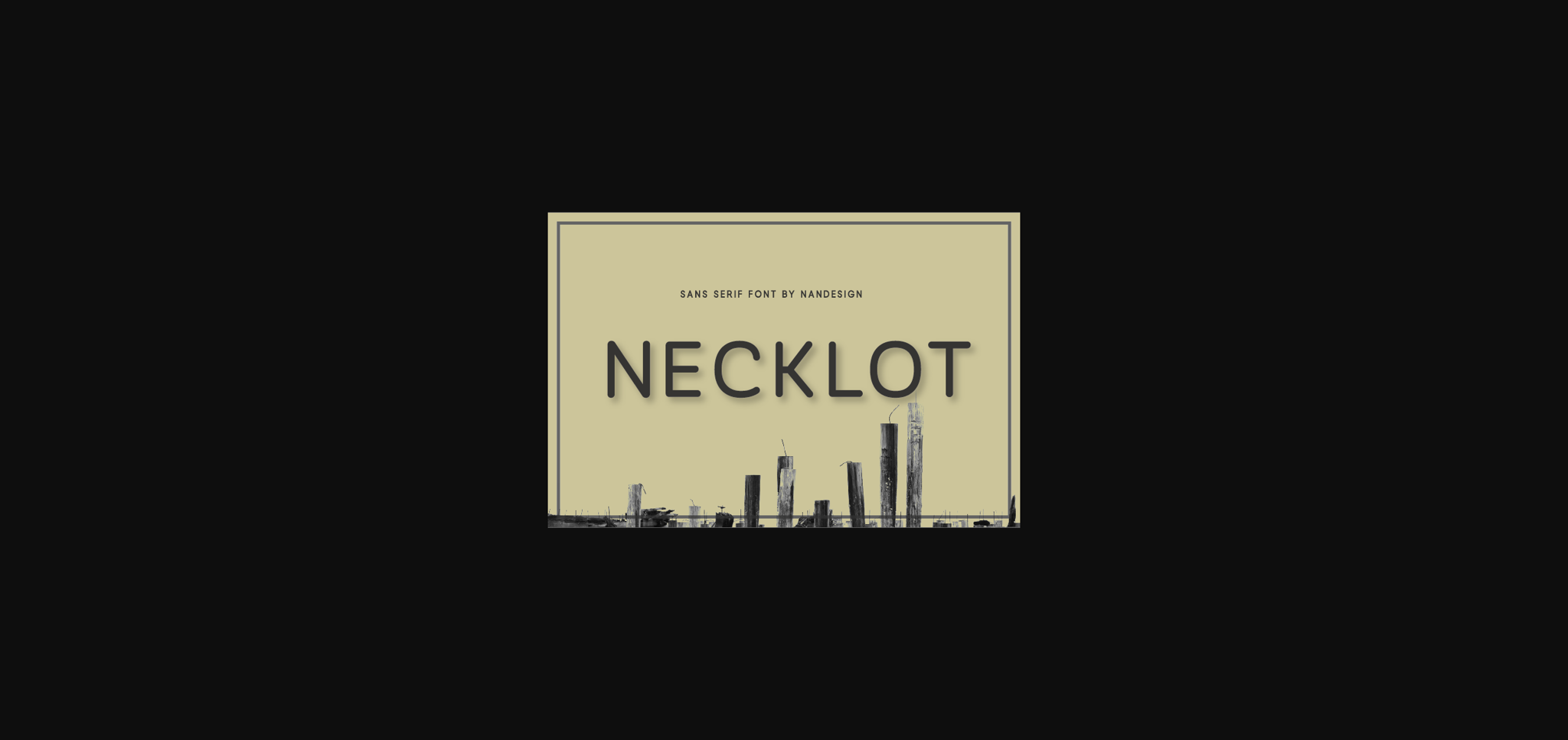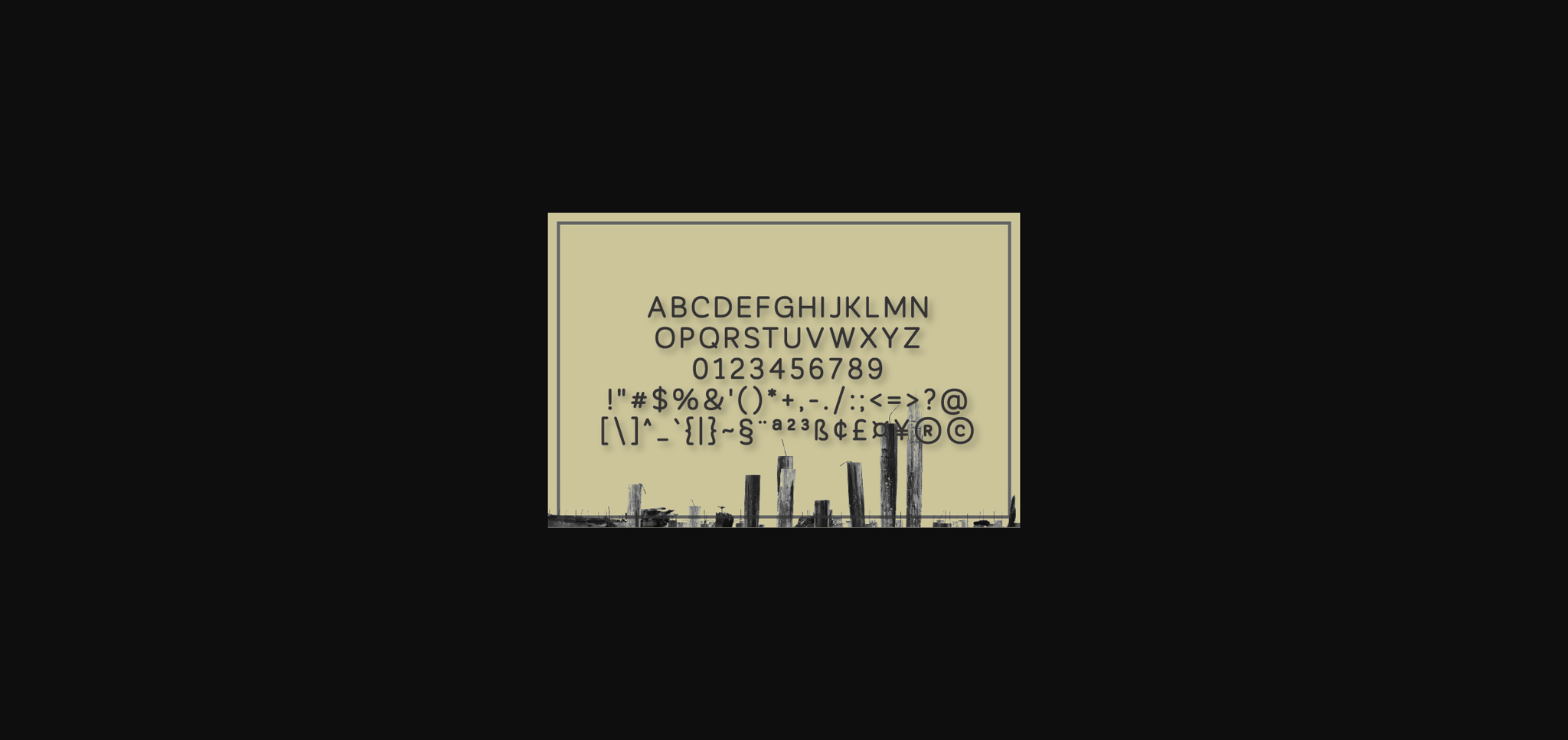
Necklot Font
About Necklot Font
Necklot is a neat and round lettered sans serif font. Fall in love with its incredibly versatile style and use it to create spectacular designs!